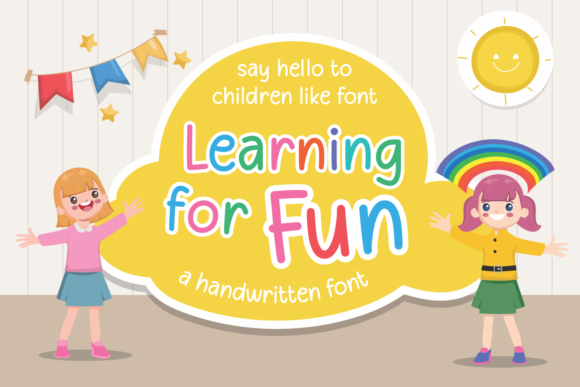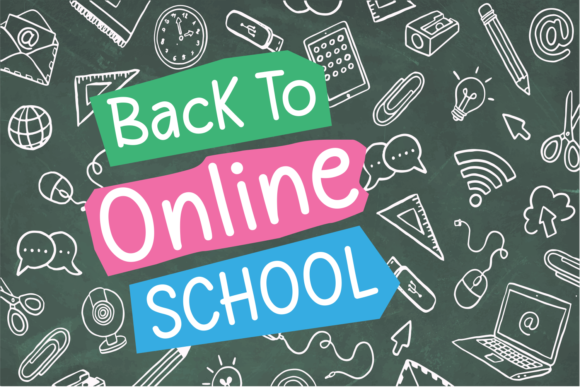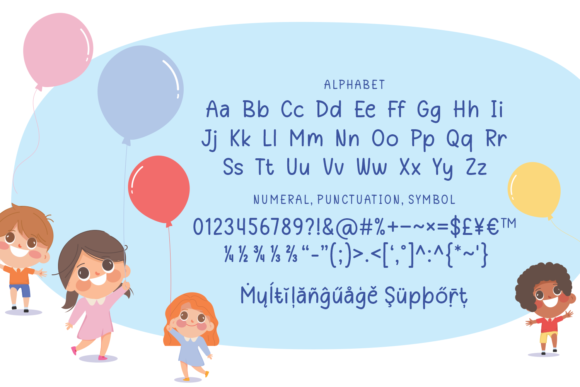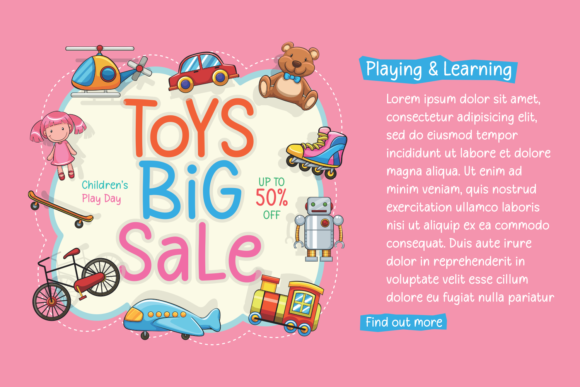
Learning for Fun Font
About Learning for Fun Font
Learning for Fun is a vibrant and youthful handwritten font designed to infuse your products with an aura of fun and excitement. Perfect for anything related to children, this font comes to life when paired with colorful designs, promising results that you’ll love.
The playful and youthful nature of Learning for Fun makes it an ideal choice for projects targeted at children. Whether used in educational materials, toys, games, or any other child-centric products, this font brings a sense of joy and enthusiasm.
In educational contexts, Learning for Fun adds a lighthearted touch to learning materials, making the process more engaging and enjoyable for young learners. Its handwritten style conveys a sense of creativity and playfulness, creating a positive learning atmosphere.
Pairing Learning for Fun with colorful designs enhances the overall vibrancy and visual appeal. The font adapts well to various design elements, allowing you to create a cohesive and lively aesthetic that resonates with the energy of childhood.
For products such as toys and games, Learning for Fun contributes to a friendly and approachable look. The font’s playful demeanor complements the theme, making it attractive to children and appealing to their sense of curiosity and adventure.
The versatility of Learning for Fun makes it suitable for a wide range of applications, allowing you to incorporate it into anything children-related. Its handwritten charm adds a personal and friendly touch, making your products stand out with a touch of youthful exuberance.
In summary, Learning for Fun is more than just a font; it’s a vibrant and youthful design tool that injects fun and excitement into your projects. Whether used in educational materials or paired with colorful designs for children’s products, Learning for Fun brings a delightful energy that resonates with the joy of learning and play.